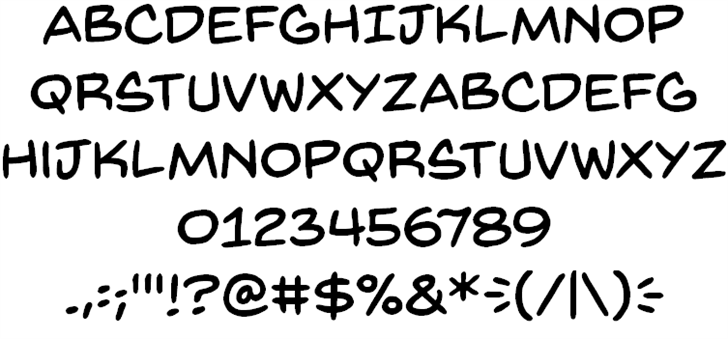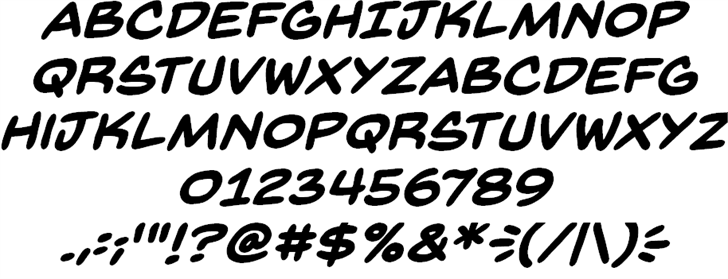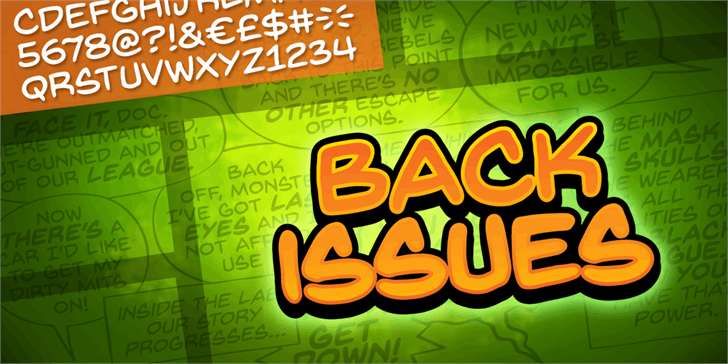
Back Issues BB font family
The thrill of digging through dusty old long boxes to find that holy grail issue to complete your comic collection! Includes regular, italic and bold.